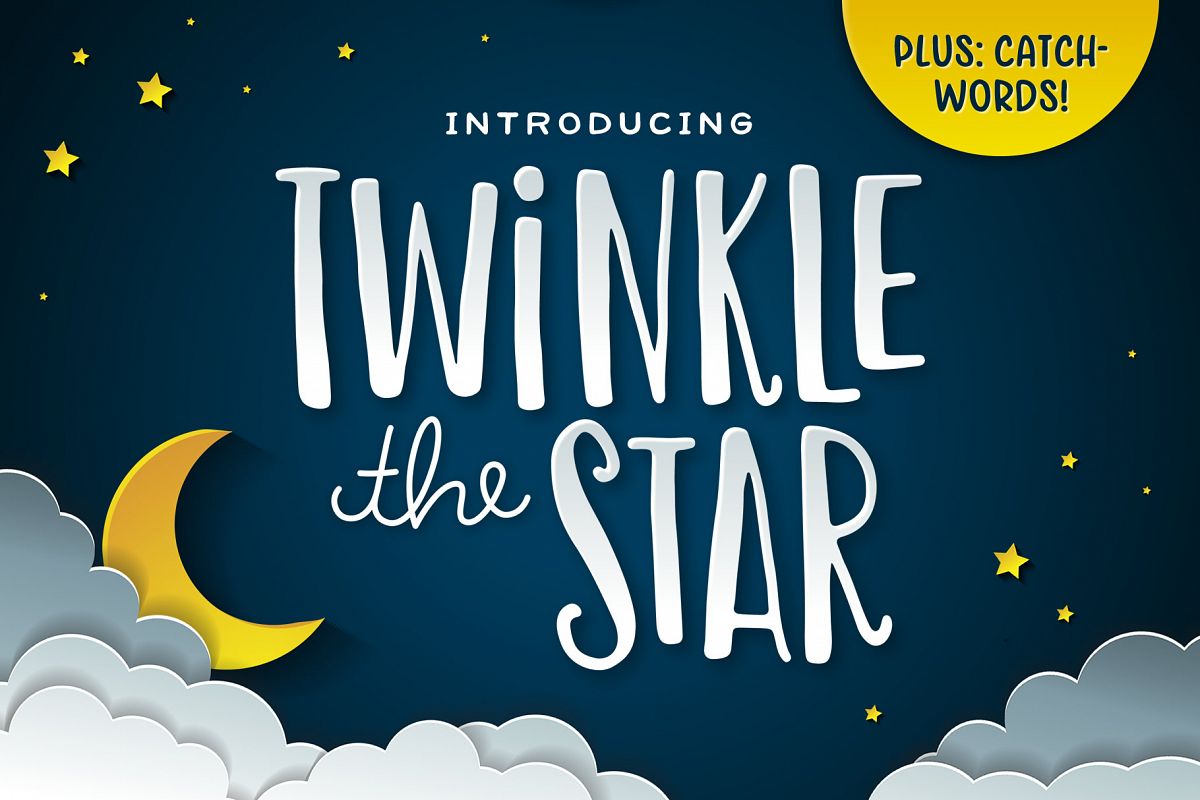
Twinkle the Star Font
Introducing: Twinkle the Star Font! A condensed, hand-drawn font that comes with a set of catchwords for creating whimsical and fun (yet readable) designs.